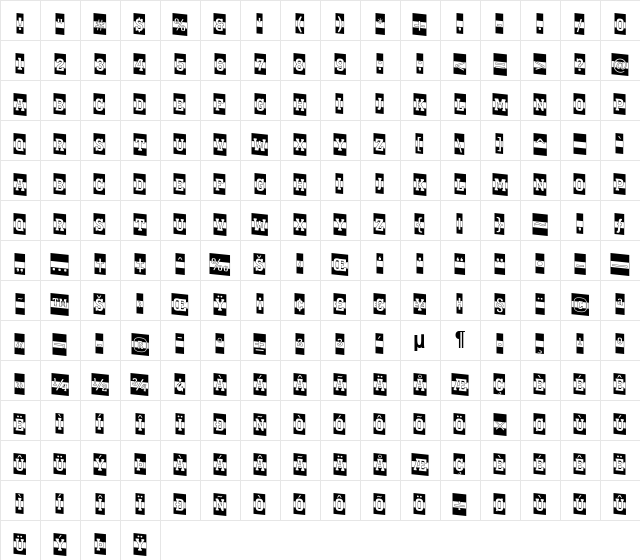
a_KenaCmB&WDn Medium
| Designer | W.Chufarofsky & M.Slutsker |
Design Context for a_KenaCmB&WDn Typeface
a_KenaCmB&WDn is a composed and adaptable typeface that performs quietly and consistently across a wide range of design contexts.